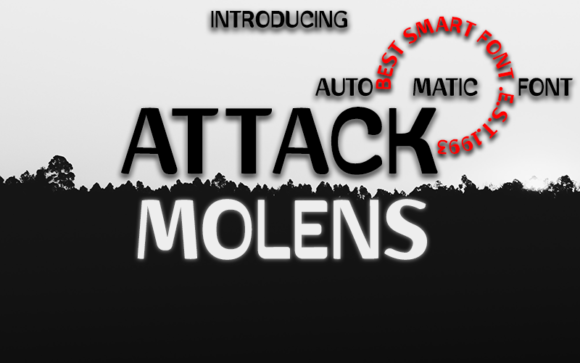
That’s where the Attack Molens Font comes in – a delightful sans serif font that embodies fun, quirkiness, and authenticity. With its playful yet professional vibe, this enchanting font is perfect for turning any creative idea into a true standout. For designers, Attack Molens Font is a valuable addition to their toolkit, offering a fresh and exciting way to express their vision and connect with their audience.
Attack Molens Font Key Features
- Font Family: Attack Molens is a unique, hand-drawn sans-serif font family.
- Font Size: Available in 6 font weights, ranging from Thin (100) to Black (900).
- Resolution: Optimized for use at medium to high resolutions (72-300 DPI).
- Unique Characteristics: Features a distressed, hand-crafted aesthetic with subtle texture and imperfections.
Attack Molens Font Review
Overall, I think Attack Molens Font has some great qualities that make it a decent choice for certain projects, but it also has some limitations that might make it less suitable for others. ✨
- Unique and bold design – Attack Molens Font has a distinct, futuristic look that’s sure to grab attention.
- Good for headings and titles – The font’s boldness makes it perfect for use in headings, titles, and other text that needs to stand out.
- Highly customizable – Attack Molens Font offers a range of styles and sizes that can be easily customized to fit your project’s needs.
- Limited legibility – While Attack Molens Font is great for headings, it can be difficult to read in smaller sizes or for large blocks of text.
- Lacks subtlety – The font’s bold, futuristic design can be overwhelming and might not be suitable for projects that require a more understated look.
- Not suitable for body text – Due to its limited legibility, I wouldn’t recommend using Attack Molens Font for large blocks of body text.
Overall, Attack Molens Font is a solid choice for projects that require a bold, eye-catching font. However, it’s not suitable for every project, and you should carefully consider its limitations before deciding to use it.
Attack Molens Font is a bold and edgy font, making it perfect for:
1. Graphic design projects that require a bold statement.
2. Social media graphics and advertisements.
3. Web design projects that need a unique and attention-grabbing font.
Tips for getting the most out of Attack Molens Font:
1. Use it sparingly to avoid overwhelming the design.
2. Pair it with a clean and simple font to balance out the boldness.
3. Experiment with different font sizes and styles to create visual interest.
Alternatives to Attack Molens Font
Montserrat is a geometric sans-serif font designed for digital use. It is a popular choice for designers due to its clean and modern aesthetic. Use Montserrat for: logos, headings, and body text in digital products, such as websites and mobile apps. Montserrat is more versatile than Attack Molens Font, with a wider range of weights and styles available.
Avenir is a geometric sans-serif font designed by Adrian Frutiger. It is known for its clean and elegant lines, making it a popular choice for designers. Use Avenir for: luxury brands, high-end products, and editorial content. Avenir is more sophisticated than Attack Molens Font, with a more refined and elegant aesthetic.
Open Sans is a modern sans-serif font designed for digital use. It is a popular choice for designers due to its clean and readable aesthetic. Use Open Sans for: digital products, such as websites and mobile apps, as well as print materials, such as brochures and business cards. Open Sans is more approachable than Attack Molens Font, with a friendly and inviting aesthetic.
Inter is a modern sans-serif font designed by Rasmus Andersson. It is a popular choice for designers due to its clean and versatile aesthetic. Use Inter for: digital products, such as websites and mobile apps, as well as print materials, such as brochures and business cards. Inter is more contemporary than Attack Molens Font, with a sleek and modern aesthetic.
For optimal readability, we recommend using font sizes between 12pt and 24pt. At smaller sizes, the font may become difficult to read, while larger sizes may compromise the overall layout and design.